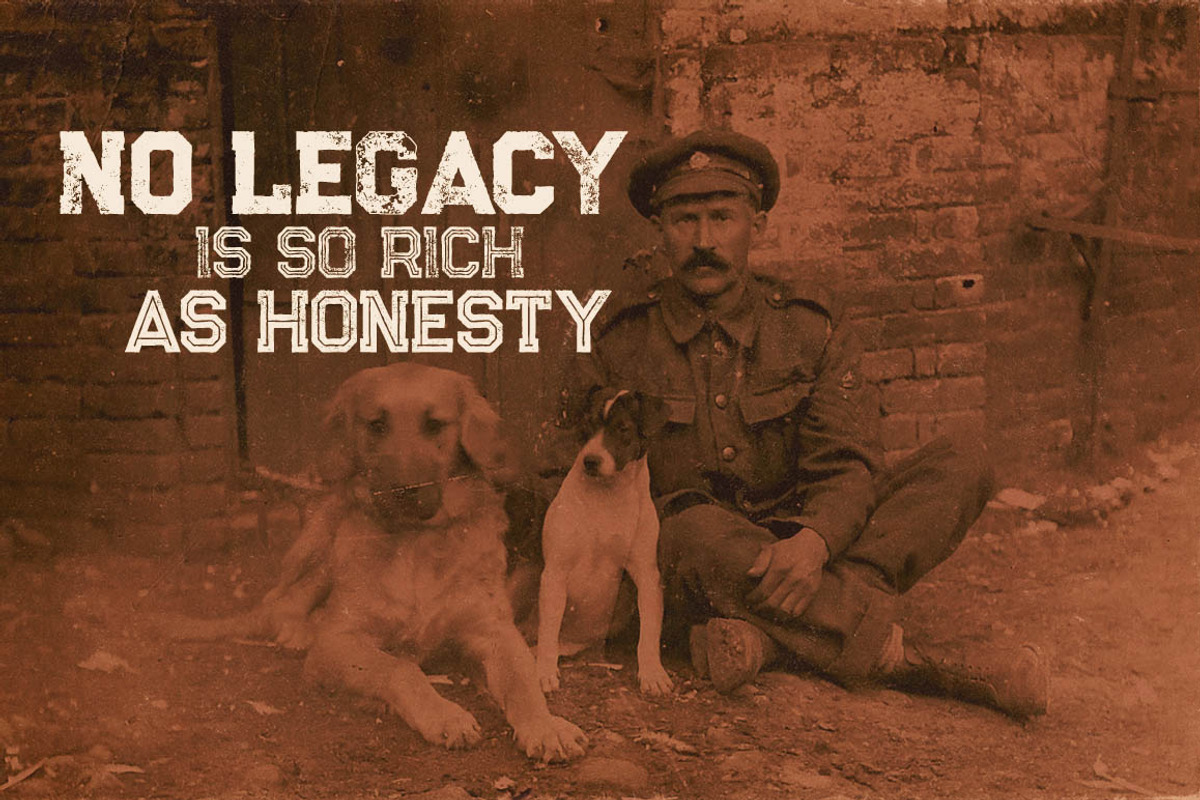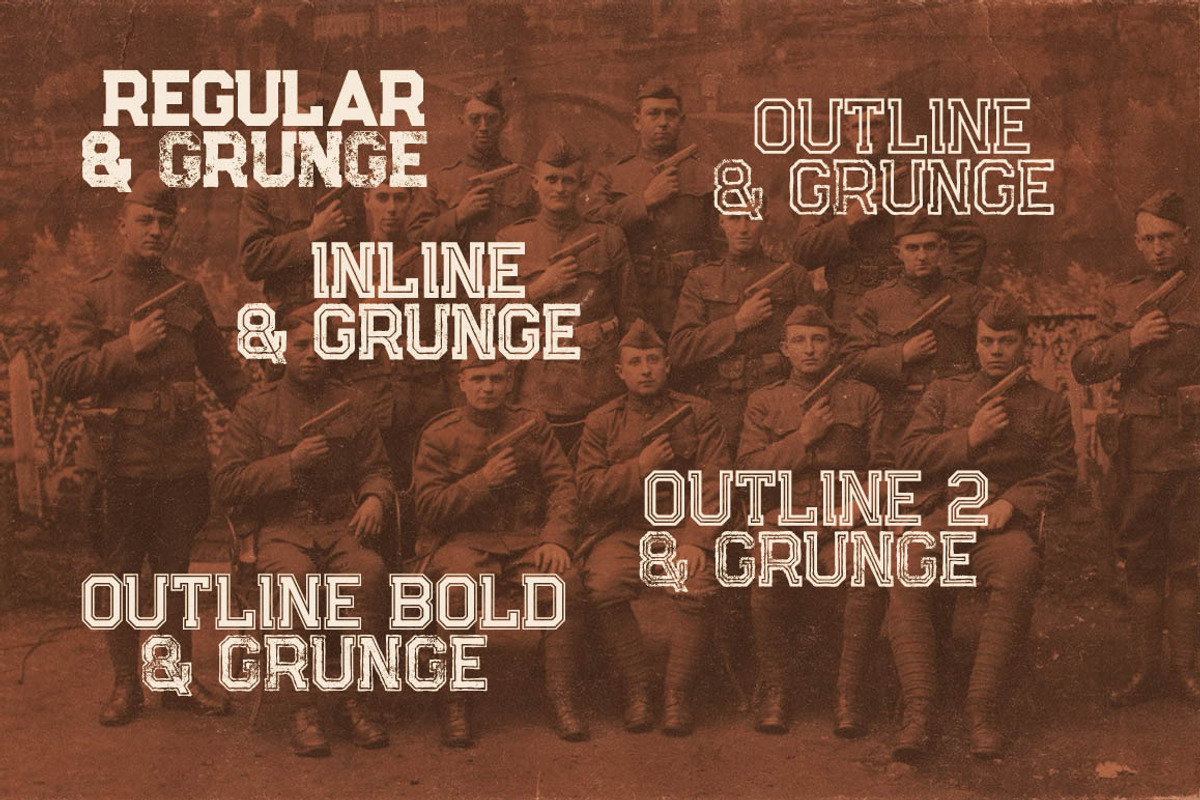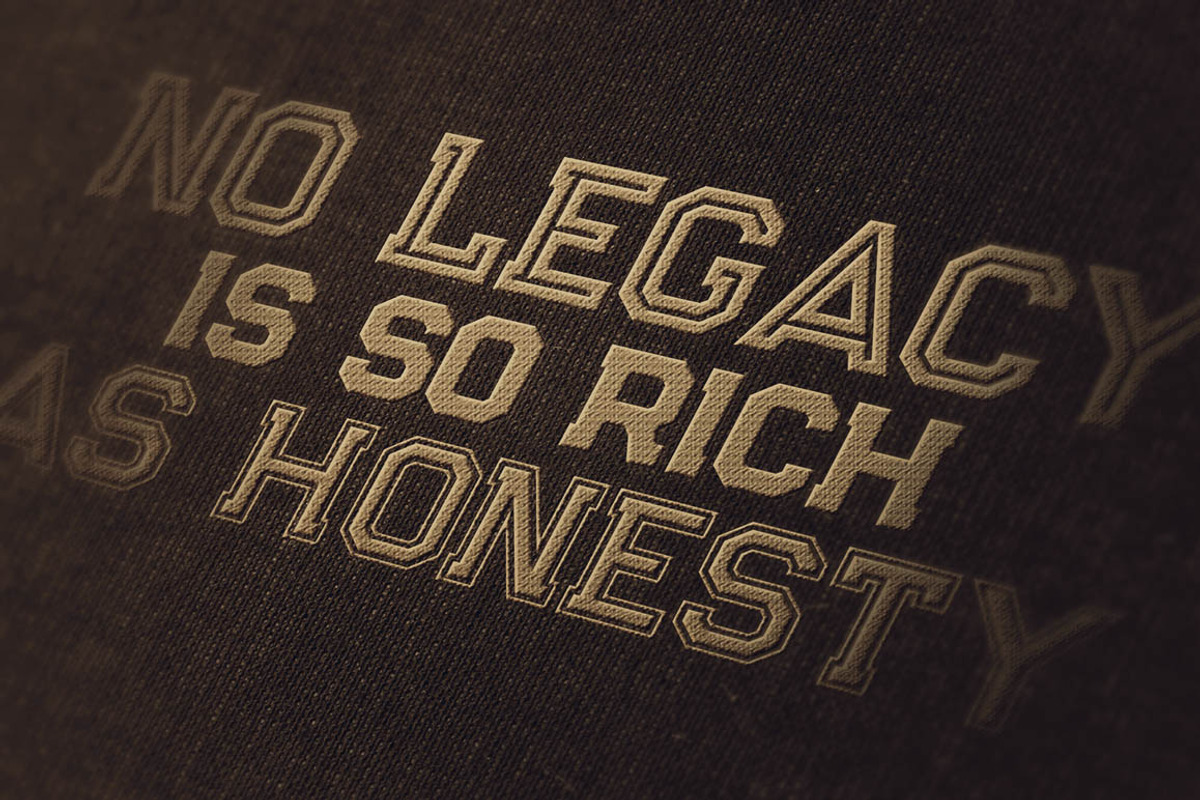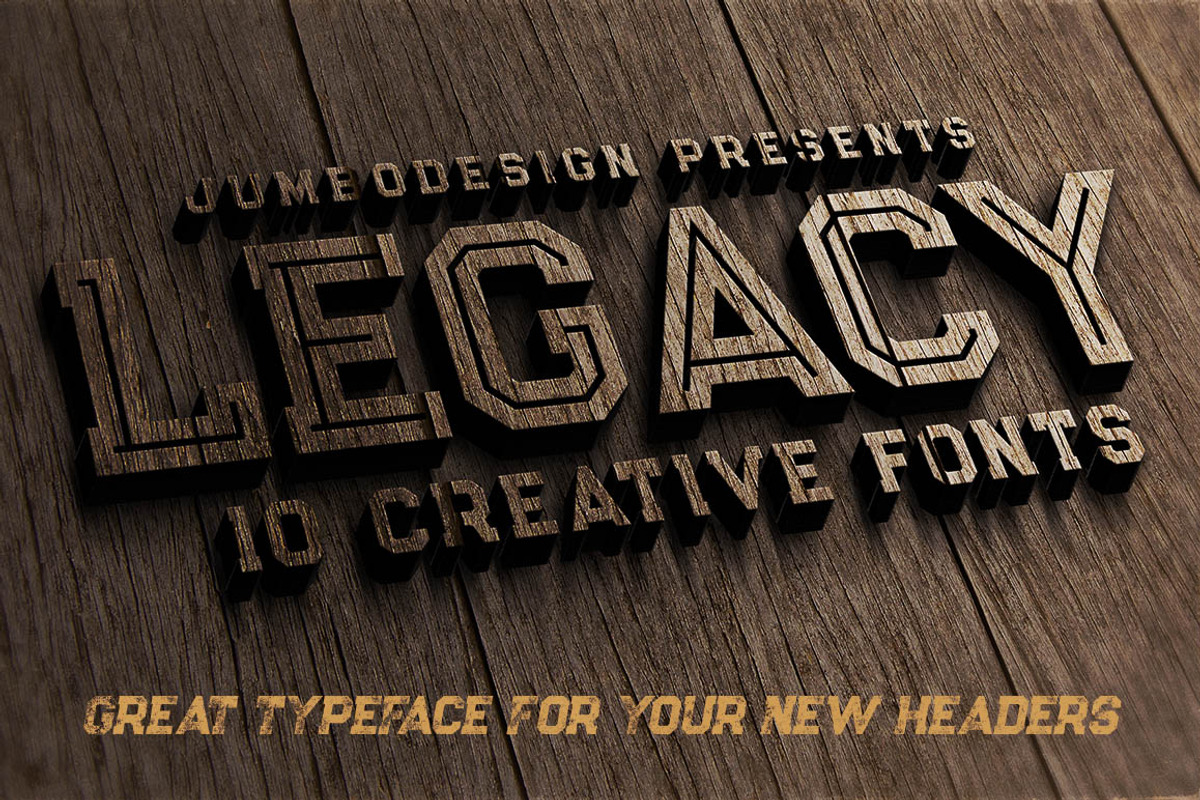
Legacy - Vintage Style Font
Legacy - Vintage Style Font by JumboDesign is a font selected for branding, posters, packaging, typography.
Why Legacy - Vintage Style Font is worth a look
Legacy - Vintage Style Font by JumboDesign fits naturally into Branding, posters, packaging, typography.